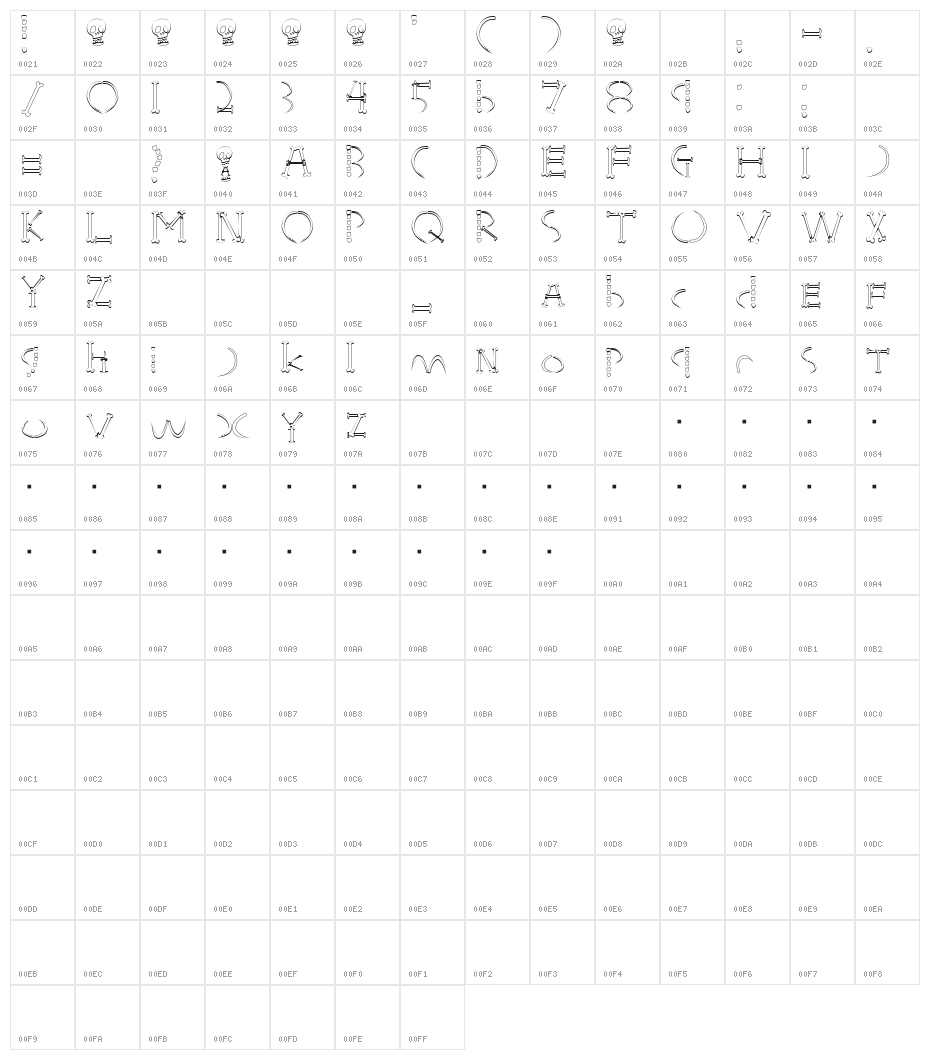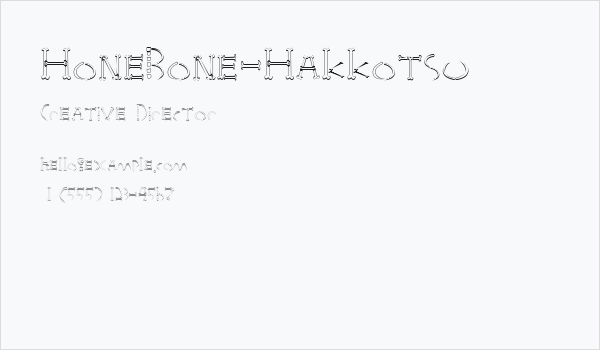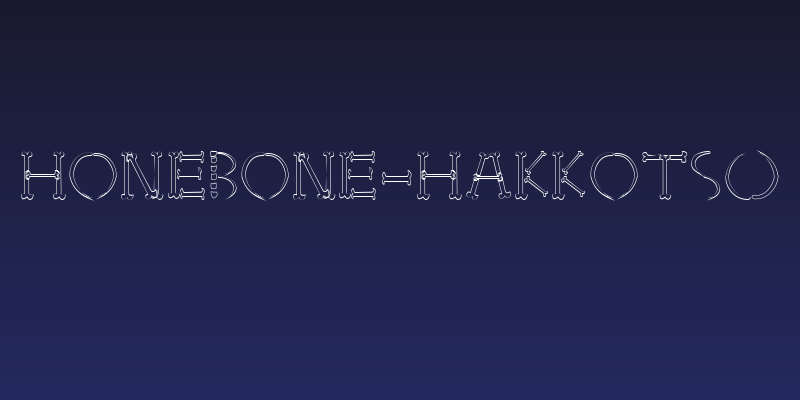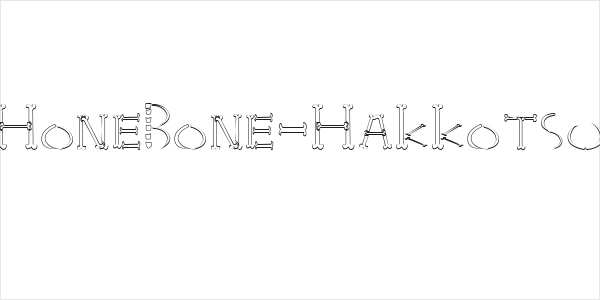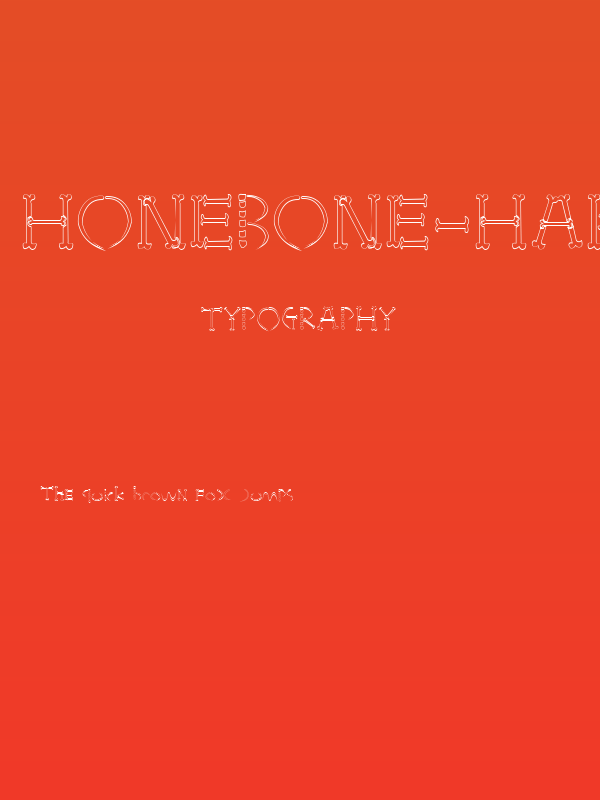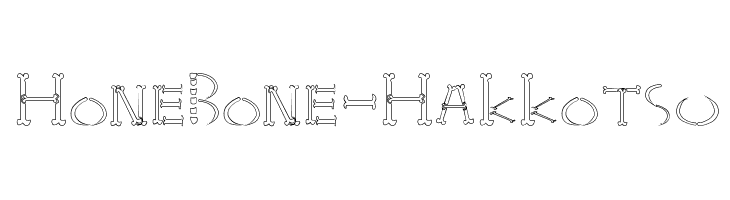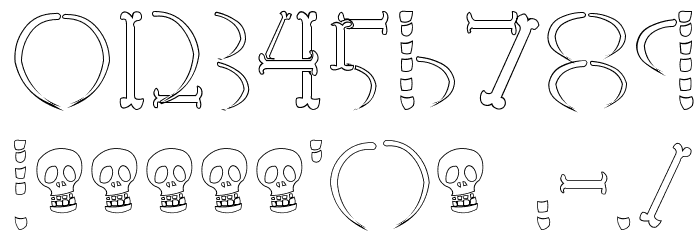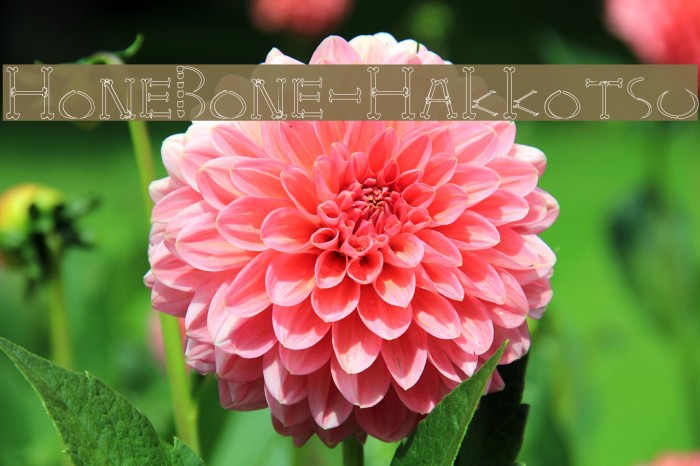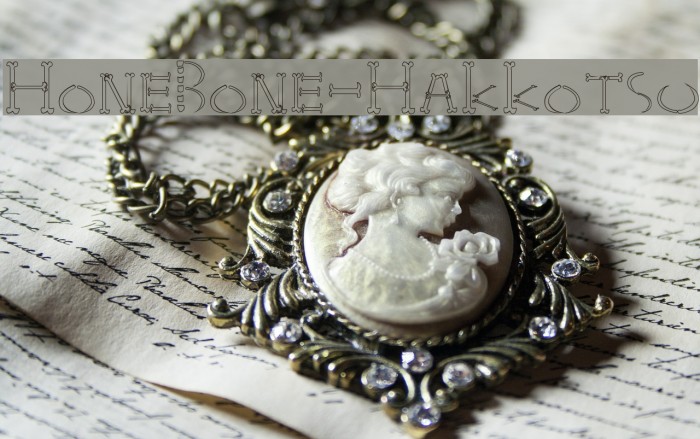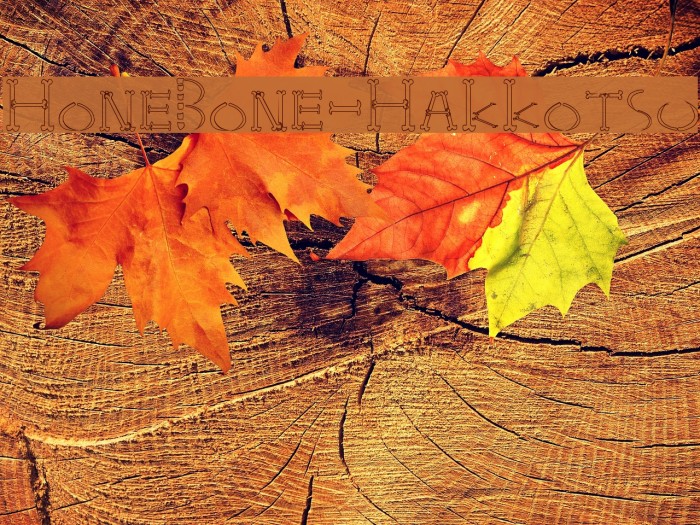
HoneBone-Hakkotsu Font
HoneBone-Hakkotsu Description
This font exhibits a playful and thematic design, with each character crafted to resemble bones. The uppercase and lowercase letters, as well as numbers and special characters, all maintain this skeletal motif, creating a cohesive and visually striking appearance. The lines are clean and the bone-like elements are consistent throughout, giving it a unique and quirky style. The font is particularly suitable for Halloween-themed projects or any design requiring a spooky or whimsical touch. Its decorative nature makes it stand out, while the consistent bone structure across all characters ensures readability.
| Use Case | Logos, Headlines, Themed Events |
| Proposed Projects | Perfect for Halloween invitations, themed party decorations, children's books, or any project needing a fun, spooky aesthetic. |